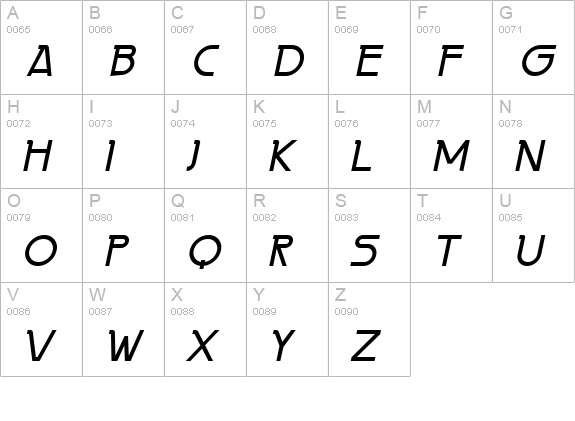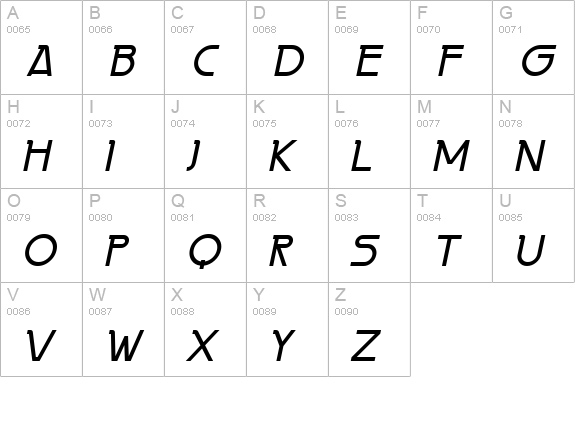
Introducing Persia BoldItalic, an exquisite font that effortlessly combines elegance and modernity. This font is specifically designed to make a bold statement, with its unique blend of boldness and italicized flair. Persia BoldItalic is perfect for those seeking a font that exudes confidence and sophistication. Its sleek and slanted design captures attention and adds a touch of drama to any project. Whether you are designing eye-catching headlines, creating striking logos, or crafting memorable invitations, Persia BoldItalic will elevate your work to new heights. What sets Persia BoldItalic apart is not only its striking appearance but also its versatility. It seamlessly adapts to various design styles, making it suitable for both formal and informal projects. From fashion magazines to luxury brands, Persia BoldItalic is a go-to choice for designers looking to add a touch of elegance to their creations. And the best part? Persia BoldItalic is available for free! That's right, this exceptional font can be freely downloaded at FontsMarket.com. Now, you can enhance your designs without breaking the bank. So, why wait? Unleash your creativity and elevate your projects with the captivating Persia BoldItalic font today!